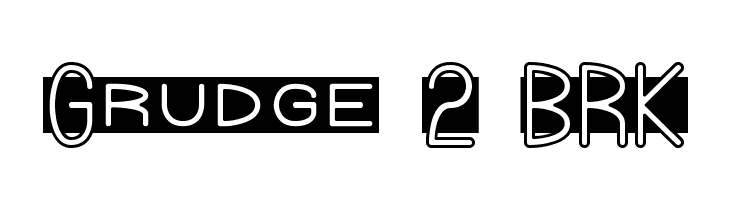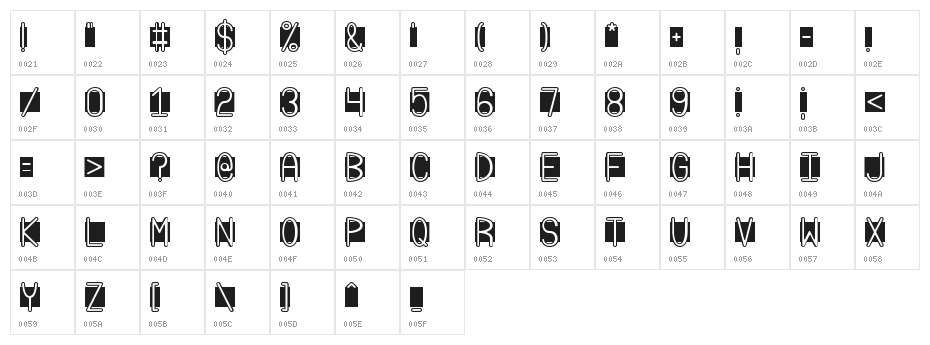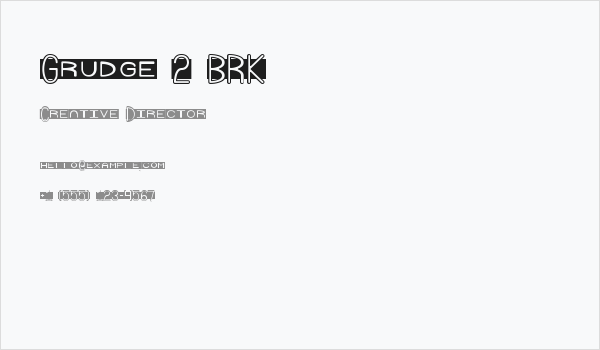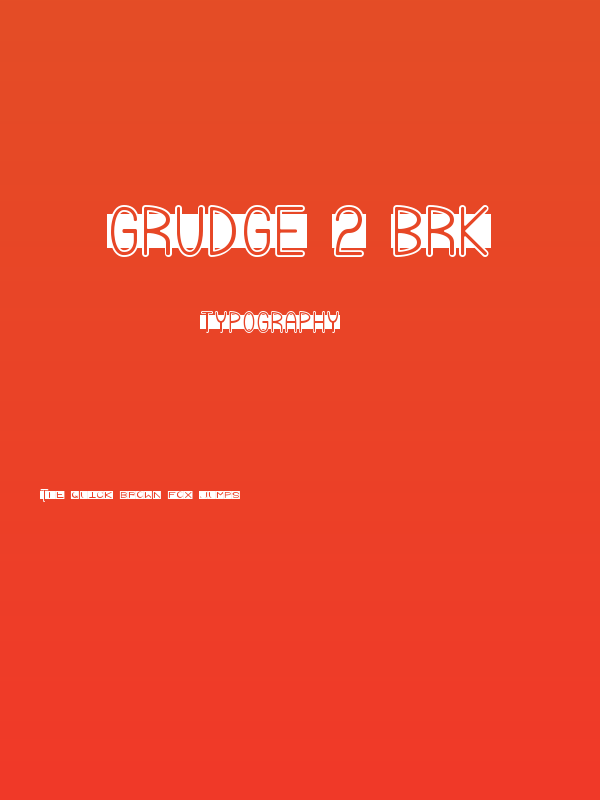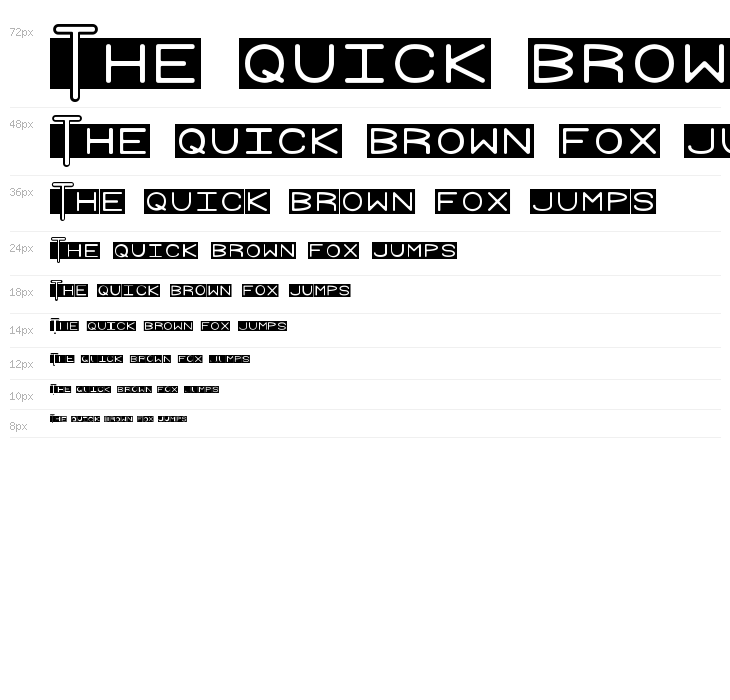
Grudge 2 BRK Font
Grudge 2 BRK Description
This font features a bold, outlined style with a playful and slightly retro aesthetic. The uppercase letters are characterized by thick, uniform strokes with a hollow interior, creating a striking contrast against the background. The lowercase letters maintain the same bold outline, offering a cohesive look across the alphabet. Numbers and special characters follow the same design principles, ensuring consistency throughout. The font's unique style makes it ideal for attention-grabbing headlines and creative projects that require a touch of nostalgia and fun.
| Overall Style | Retro, Playful |
| Proposed Projects | Ideal for posters, logos, and creative projects that require a bold, eye-catching design. |